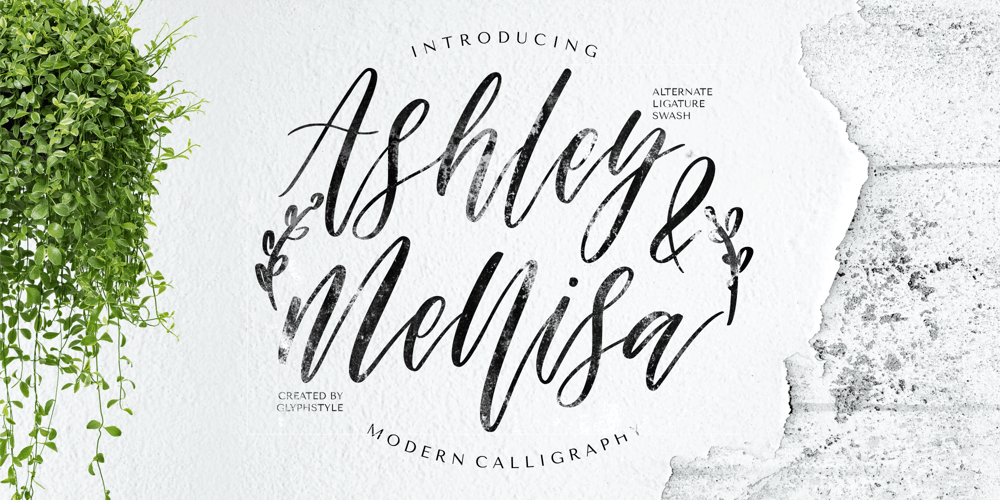
Ashley & Mellisa Font Family was designed by Dimas Ardhi and published by GlyphStyle. Ashley & Mellisa contains 1 styles and family package options. Ashley & Mellisa is a handwritten font with a modern calligraphy style, with up and down lettering. Sweet and lovely font – Font feature Uppercase, Lowercase, Numerals & Punctuations, Stylistic alternate Ligature, Swashes, Multilanguage